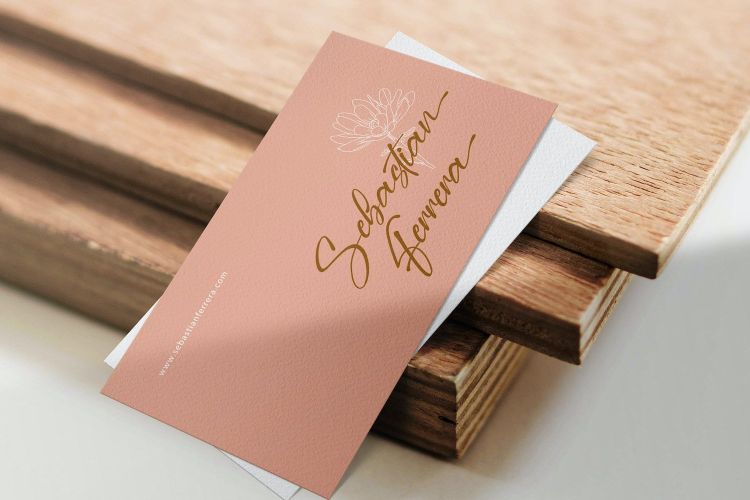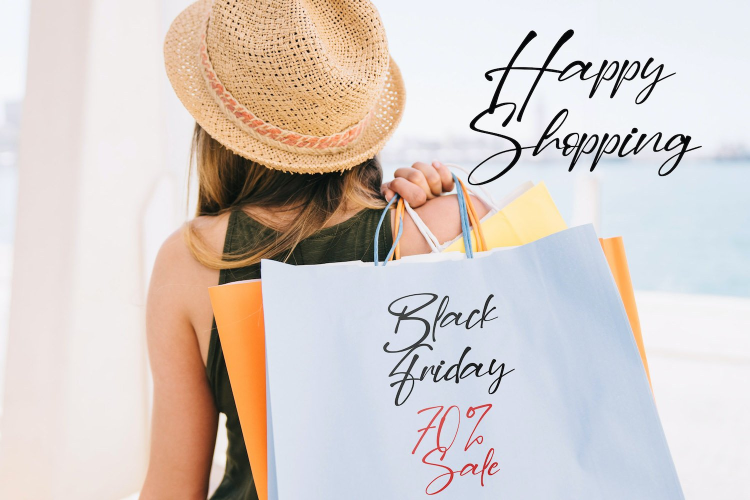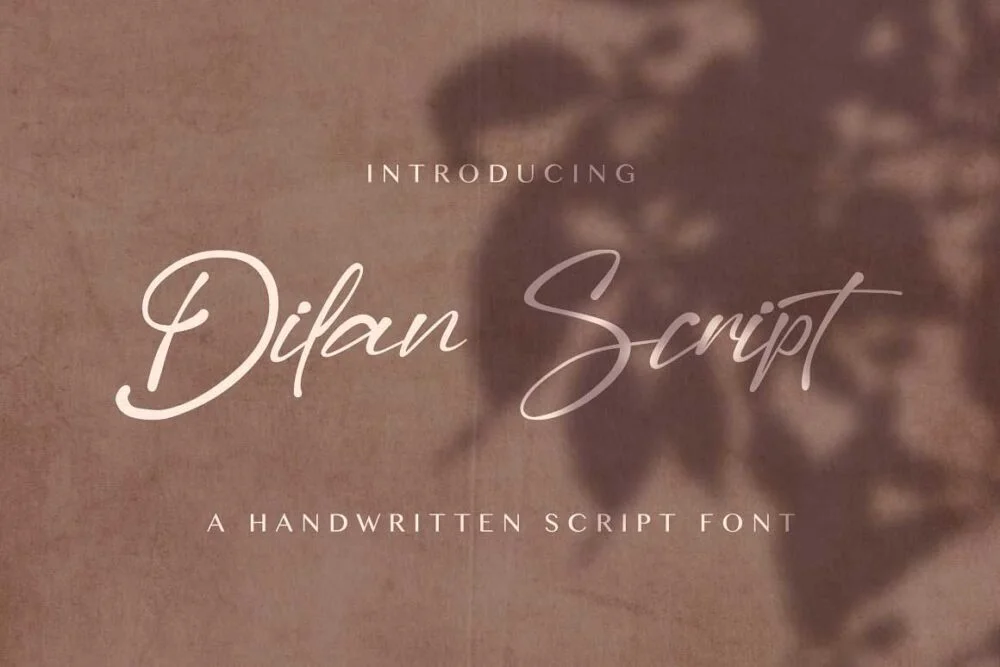
Dilan Font
Dilan Font is a delicate, elegant, and flowing handwritten font. It has beautiful and well-balanced characters and as a result, it matches a wide pool of designs. Add it to your most creative ideas and notice how it makes them come alive!
Dilan Font is a Script And Handwritten font that brings a professional and versatile look to your projects. Dilan Font is a delicate, elegant, and flowing handwritten font.